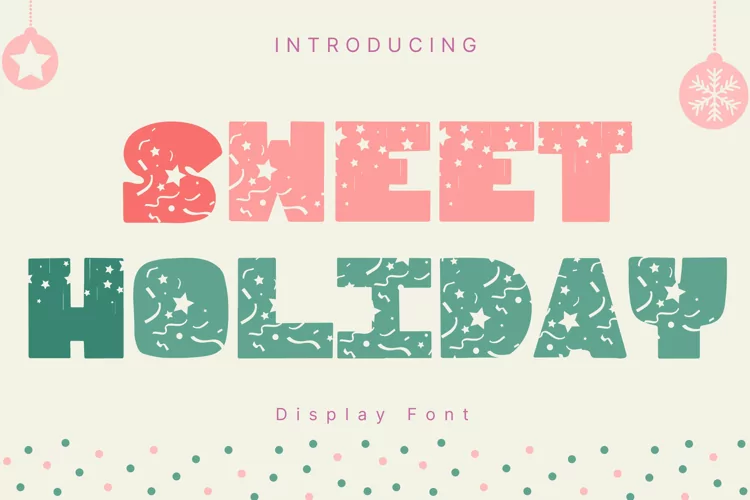
Created By AchiArt
Sweet Holiday Style
SweetHoliday
Sweet Holiday Style is a whimsical and clean handwritten font. It can easily be matched to an incredibly large set of projects, so add it to your creative ideas and notice how it makes them stand out!